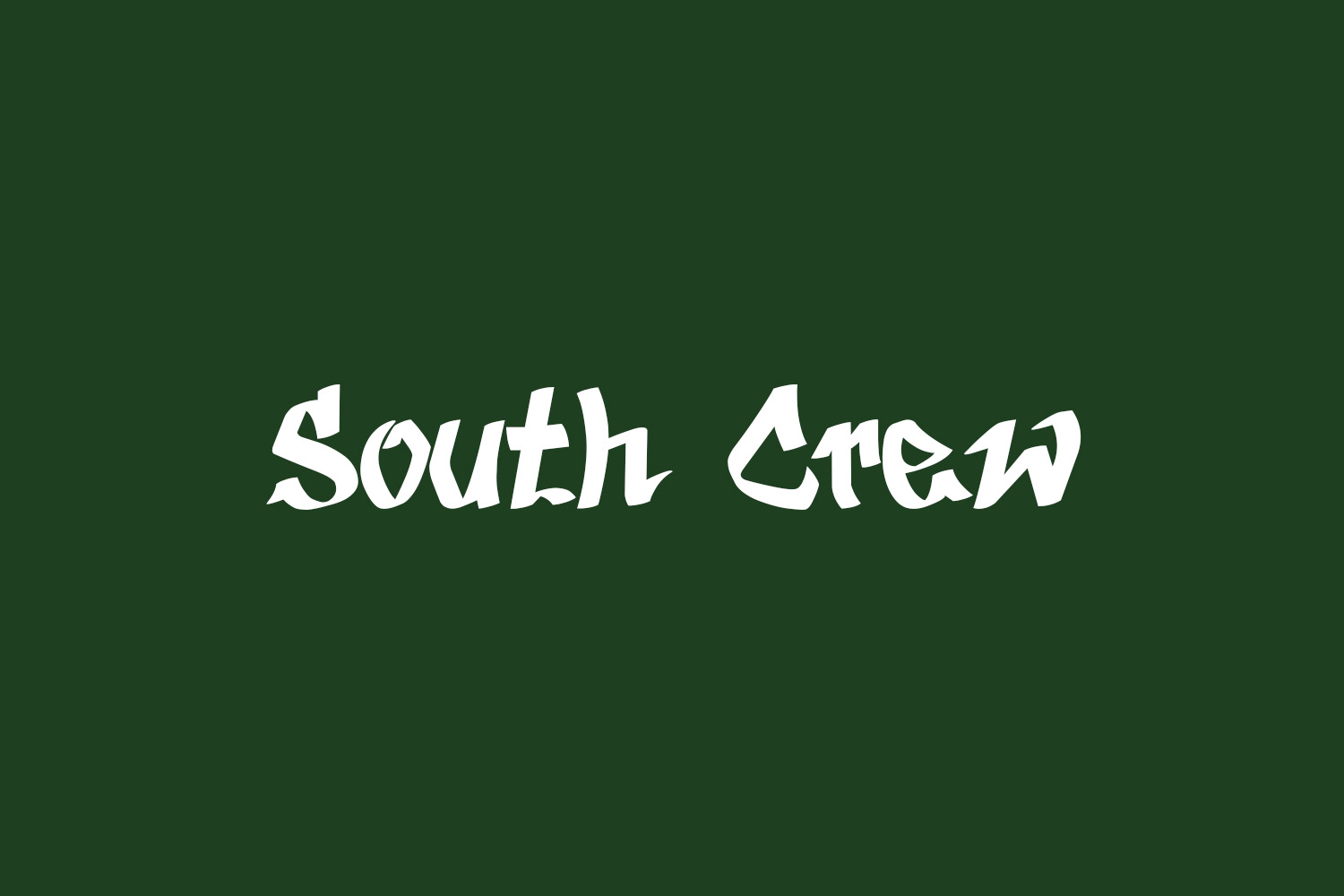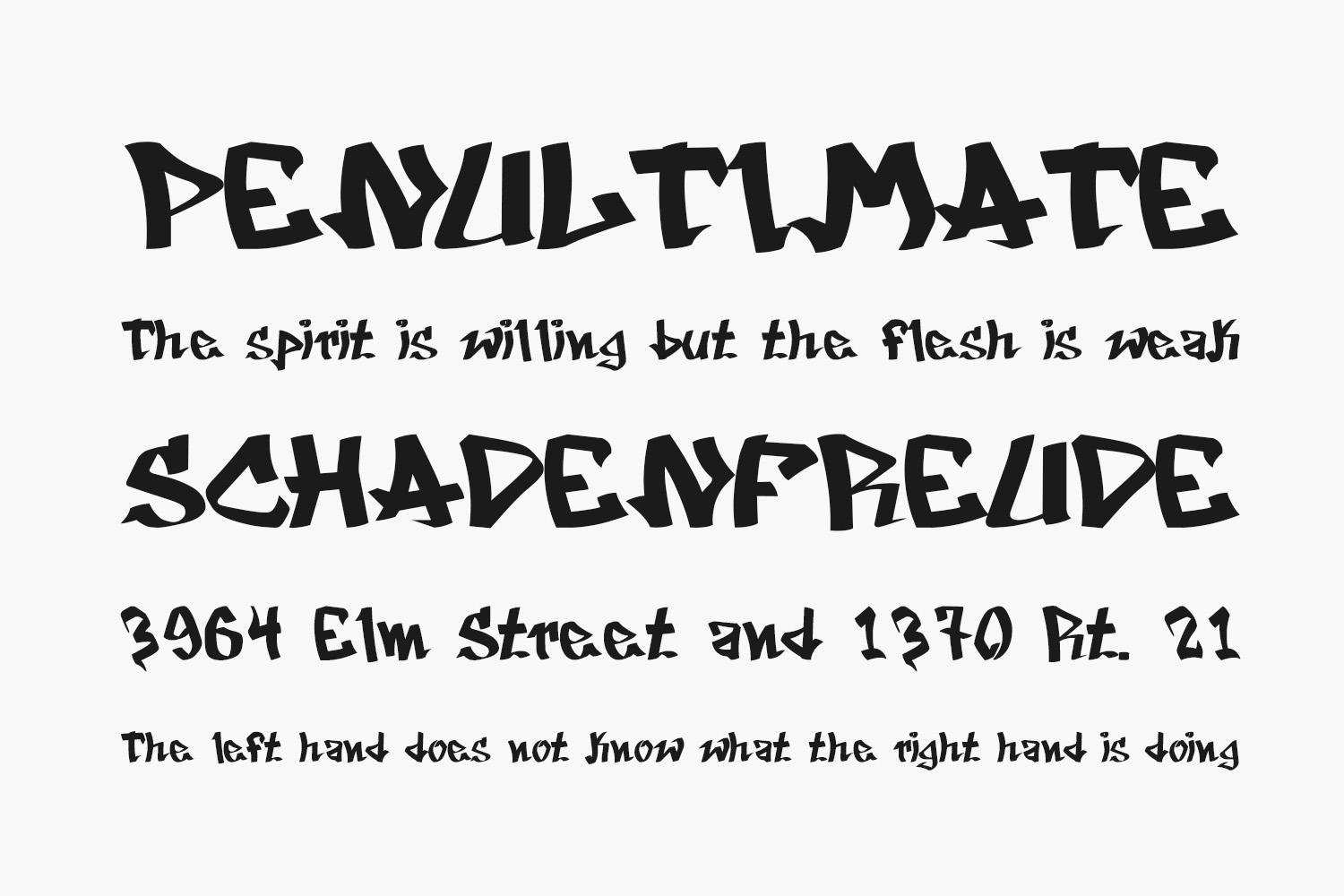
South Crew Free Font is an awesome, graffiti-styled display font that has a street art vibe. This font is suitable for designs such as t-shirts, sportswear, logos, advertisements, clothing, and more. South Crew Free Font was designed by Tokopress and is free for personal use only. Please purchase the full version for commercial use.